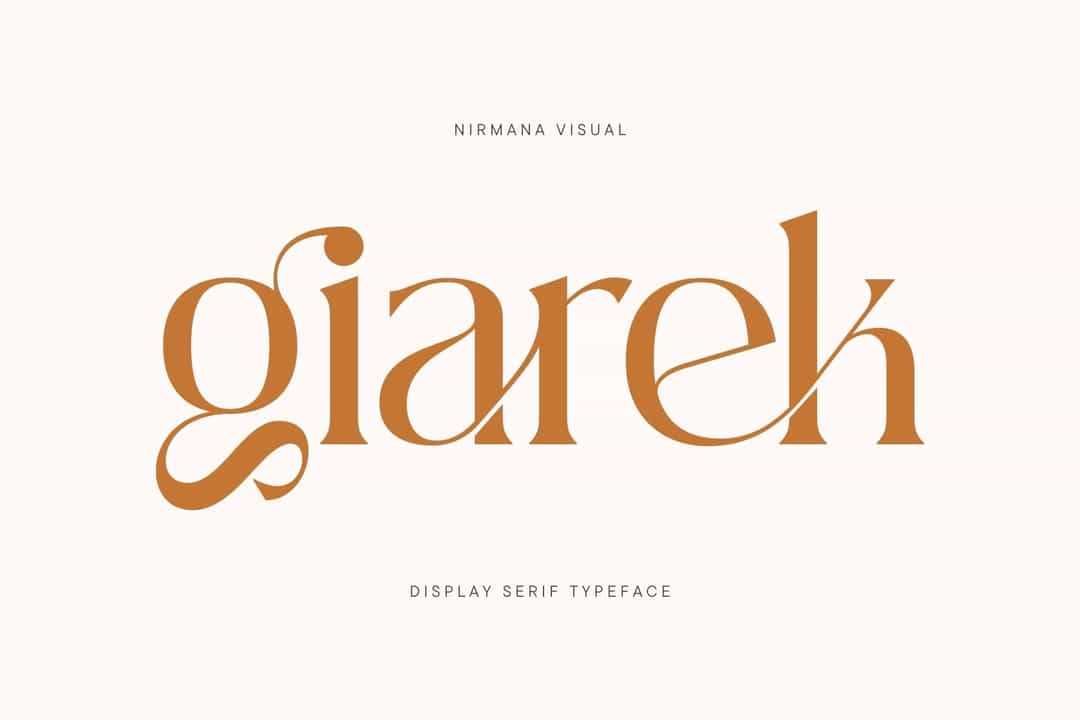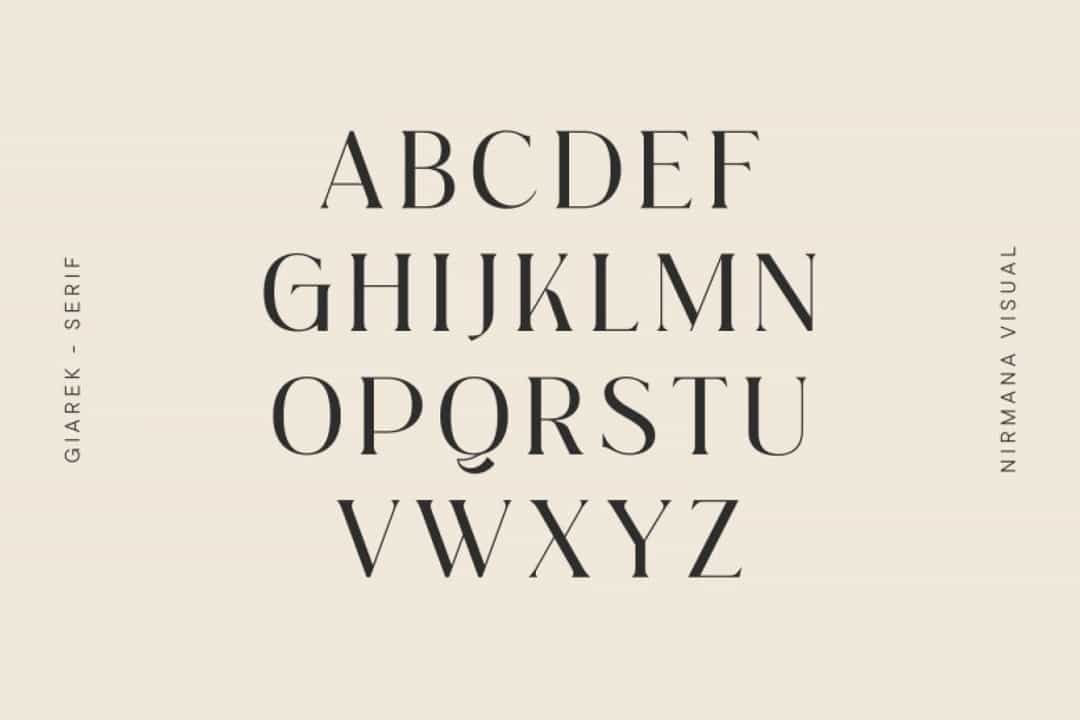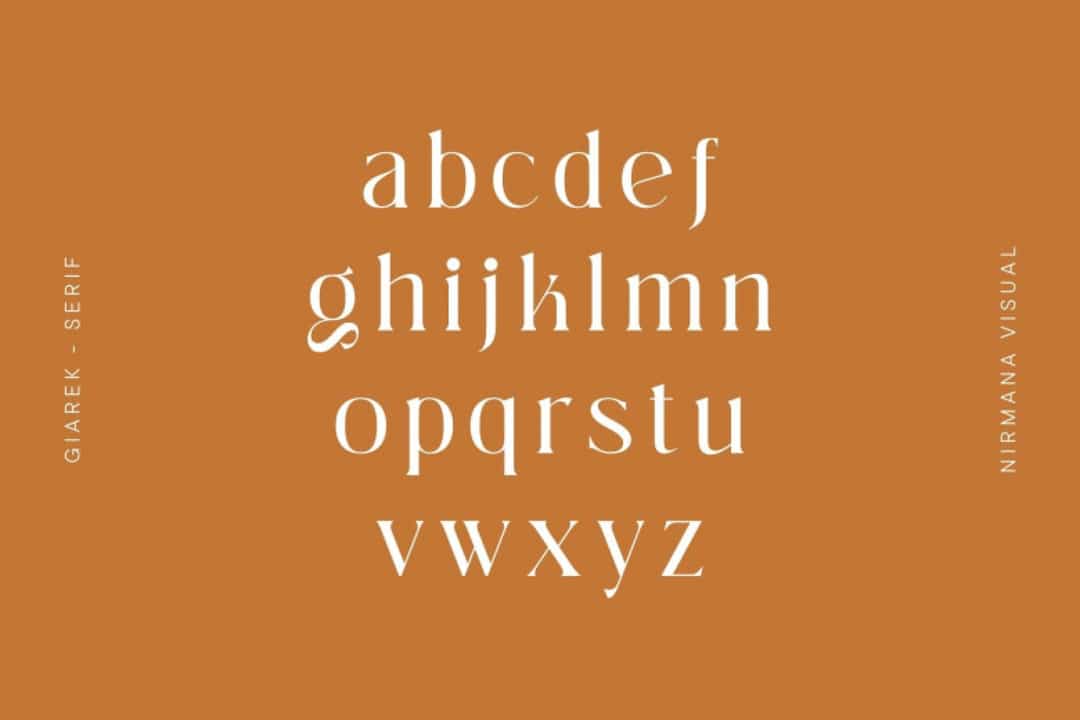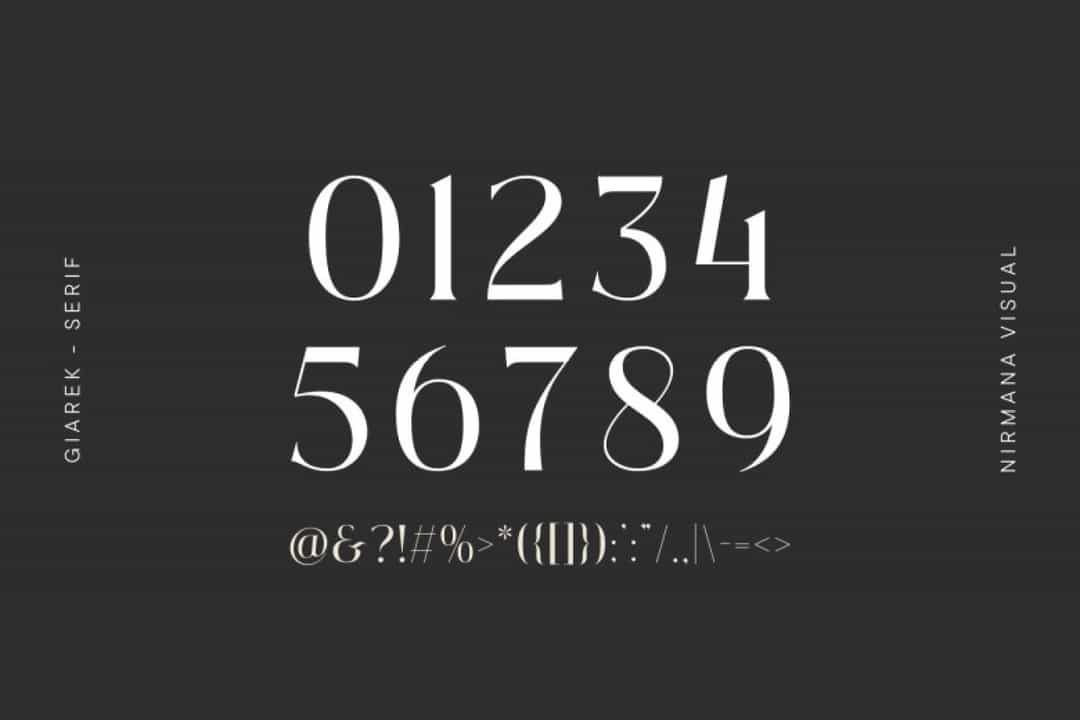
Giarek Display Serif font brings beautiful typographical harmony to a variety of design tasks, such as branding and logo creation, social media posts, advertising messages and product concepts.